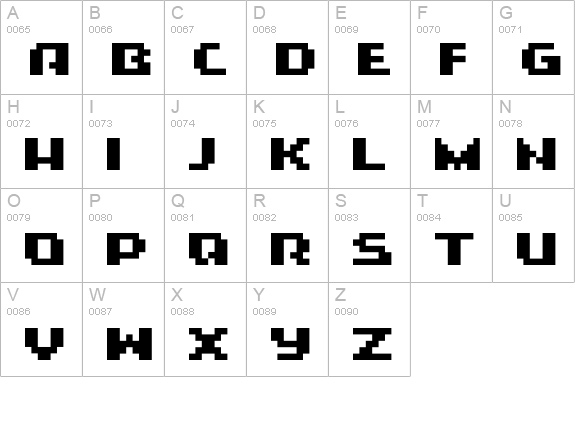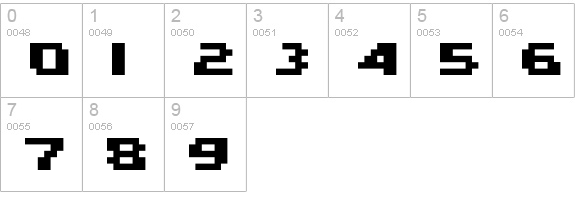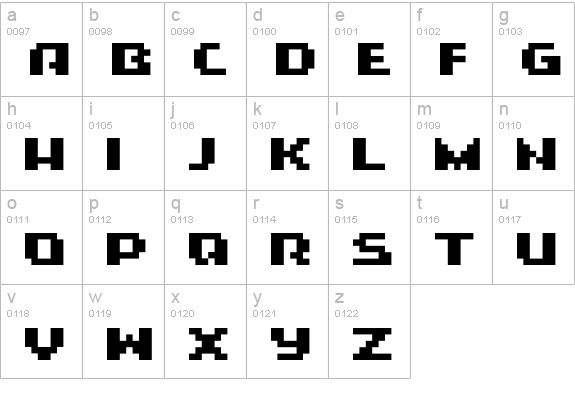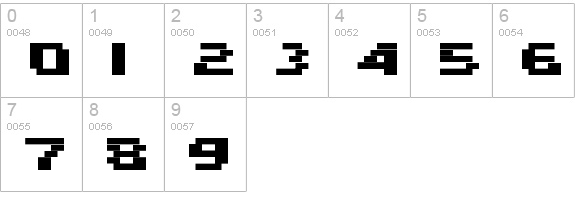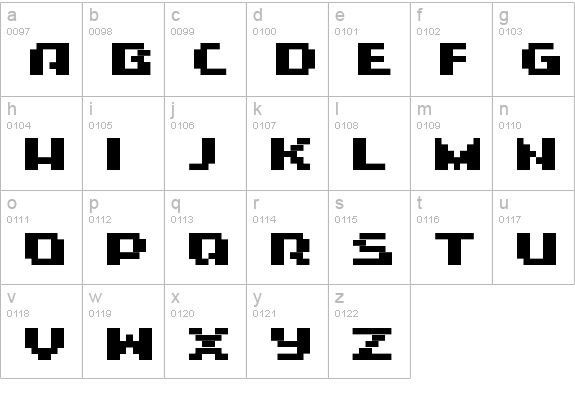
ROTORbonk Font Details
Introducing ROTORbonk font, a captivating and modern typeface designed to make your designs stand out. With its unique blend of geometric shapes and sleek lines, ROTORbonk is perfect for adding a touch of sophistication to any project. This font exudes a sense of energy and creativity, making it ideal for logos, headlines, and branding materials. What sets ROTORbonk apart is not only its striking aesthetic but also its accessibility. This font is freely available to download at FontsMarket.com, allowing designers of all levels to easily incorporate it into their work. Whether you're a seasoned professional or just starting out, ROTORbonk provides a versatile and stylish option for your design needs. Don't miss out on the opportunity to elevate your projects with the dynamic and eye-catching ROTORbonk font. Download it today and let your creativity soar!